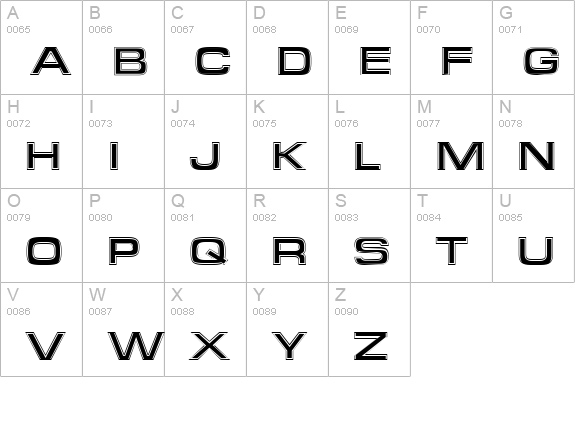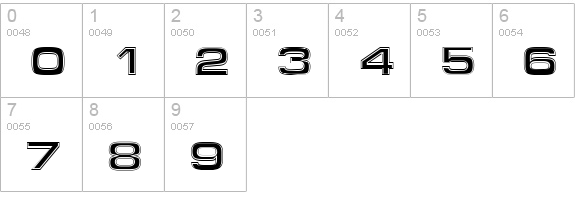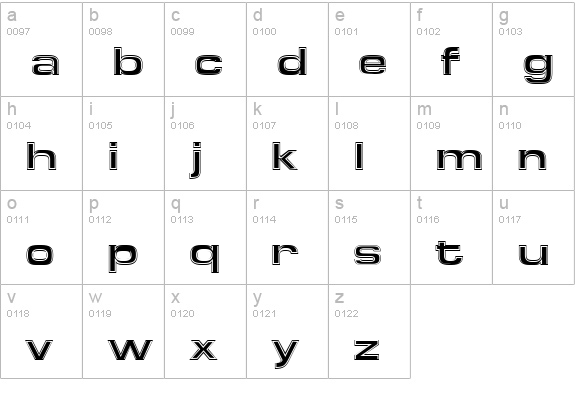
Federation Star Fleet Square Font Details
The Federation Star Fleet Square font is a sleek and futuristic typeface inspired by the iconic aesthetics of space exploration. Its sharp angles and clean lines evoke a sense of modernity and innovation, making it perfect for sci-fi themed designs and projects. This font exudes a sense of authority and sophistication, making it ideal for conveying a sense of professionalism and cutting-edge technology. Best of all, the Federation Star Fleet Square font is available for free download at FontsMarket.com. Whether you're working on a space-themed poster, a tech-focused website, or a futuristic branding project, this font will add a touch of intergalactic flair to your designs. Don't miss out on the opportunity to elevate your creations with this stunning and versatile typeface, available at no cost for your convenience. Download now and take your designs to the next level with Federation Star Fleet Square font!